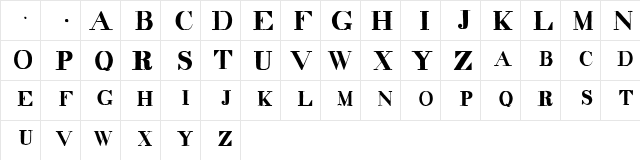
decadence in the dark Regular Font Preview
decadence in the dark Regular
decadence in the dark Regular Font Details
Design Context for decadence in the dark Typeface
decadence in the dark takes a measured approach to typography — its balanced proportions and neutral character make it a reliable workhorse for both digital and print work.